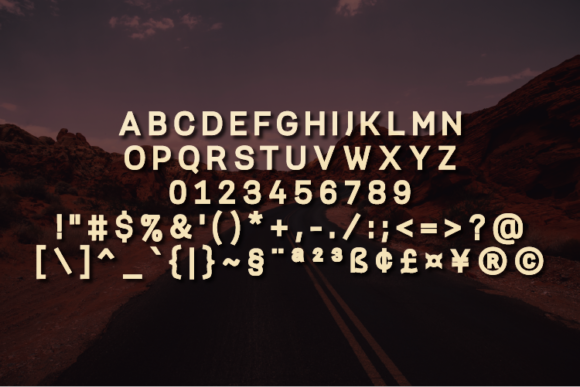
Introduction to Mammote Font
Have you ever stared at a blank canvas, eager to bring a creative project to life, only to be held back by the perfect font? The right typography can make or break the essence of your design, and for designers, finding that elusive perfect font can be a daunting task.
But what if I told you that your search is over? Introducing the Mammote Font, a strong and modern sans serif font that’s sure to elevate your design to the next level. With its high quality design and versatility, this font is a must-have for any design project, whether you’re creating a logo, branding, packaging design, or anything in between.
Key Features of Mammote Font
- High-quality design resource for creative projects, ideal for illustrations, graphics, and digital art.
- Unique characteristics include its modern and playful style, making it perfect for children’s books, magazines, and other creative projects.
- Designed to be highly legible and versatile, allowing designers to experiment with various font sizes and styles.
Honest Review: Mammote Font
As a designer, I’m always on the lookout for high-quality design resources to elevate my creative projects. The Mammote Font has been a great addition to my collection, and I’m excited to share my thoughts on it.
- Unique style: The Mammote Font has a distinctive, playful style that’s perfect for adding a touch of whimsy to your designs.
- High-quality vectors: The font is available in high-resolution vector format, making it perfect for large-scale designs or printing.
- Transparent background: The font includes a transparent background option, which makes it easy to overlay on top of images or other design elements.
- Limited character set: The Mammote Font is a display font, and it’s primarily designed for use in titles and headings. If you need a font for body text, you may want to look elsewhere.
Overall, I’m impressed with the Mammote Font, and I think it’s a great addition to any designer’s toolkit. With its unique style and high-quality vectors, it’s perfect for adding a touch of creativity to your designs. Just be aware of the limitations, and use it accordingly.
Tips for Getting the Most Out of Mammote Font
Experiment with different font sizes, colors, and combinations to create a unique design. Use the Mammote Font in conjunction with other design resources for a cohesive look. Take advantage of its transparent background feature to add depth to your design.
The Mammote Font is ideal for creative projects, such as graphic design, branding, and digital art. It’s also great for creating high-quality design resources, such as infographics and presentations. With its free download and transparent background feature, it’s a valuable addition to any designer’s toolkit.